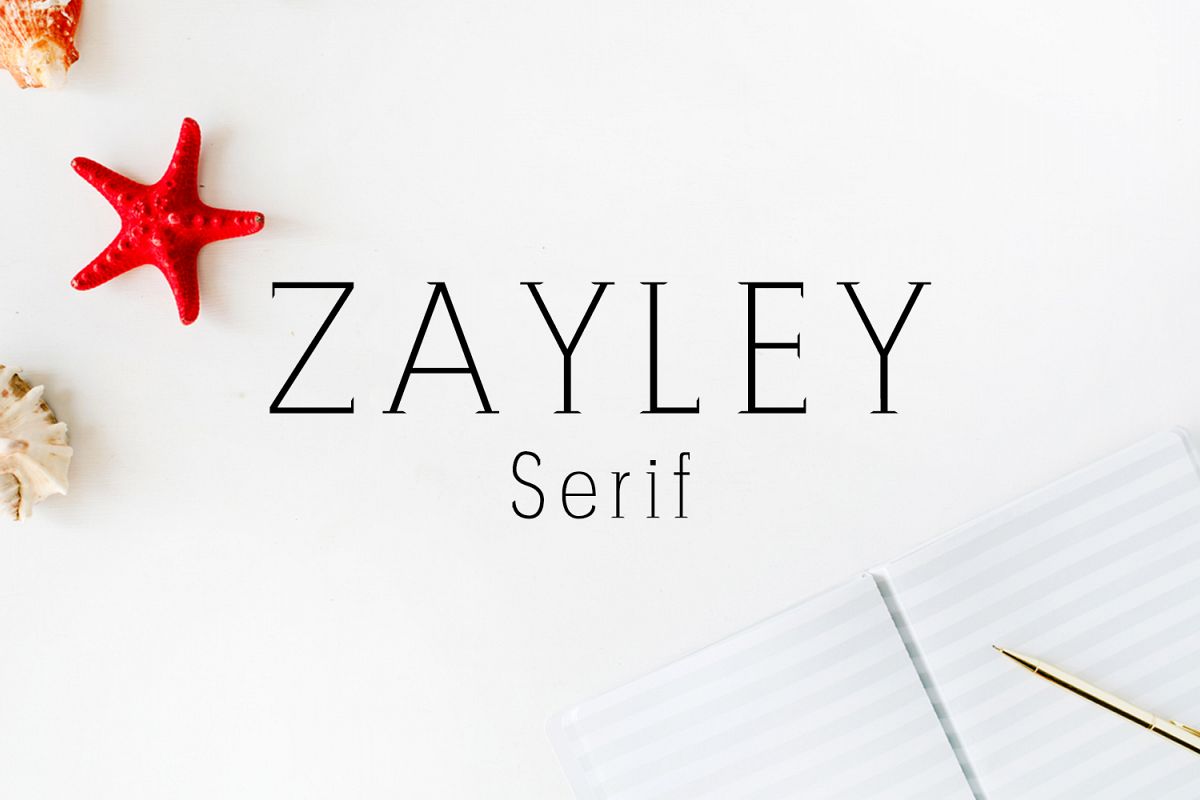
Zayley Serif Regular Font
Zayley-Regular
Zayley Serif Regular Font features unique and modern serif look and feel. Perfect for gorgeous logos, titles, web layouts and branding. It looks gorgeous in all caps with a wide-set spacing if you want to try a classy look, or beautiful on its own in capital and lowercase letters for something completely timeless.
Zayley Font Features:
• Uppercase Multilingual Letters
• Lowercase Multilingual Letters
• Alternative